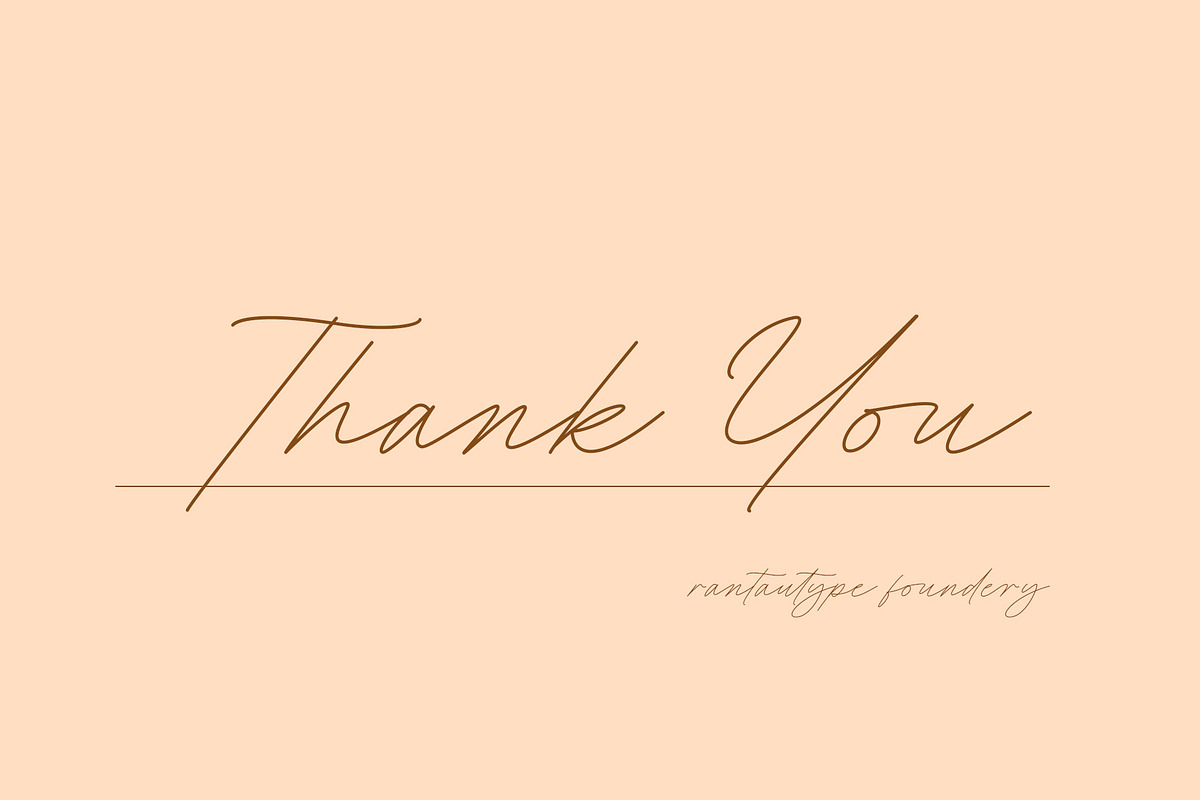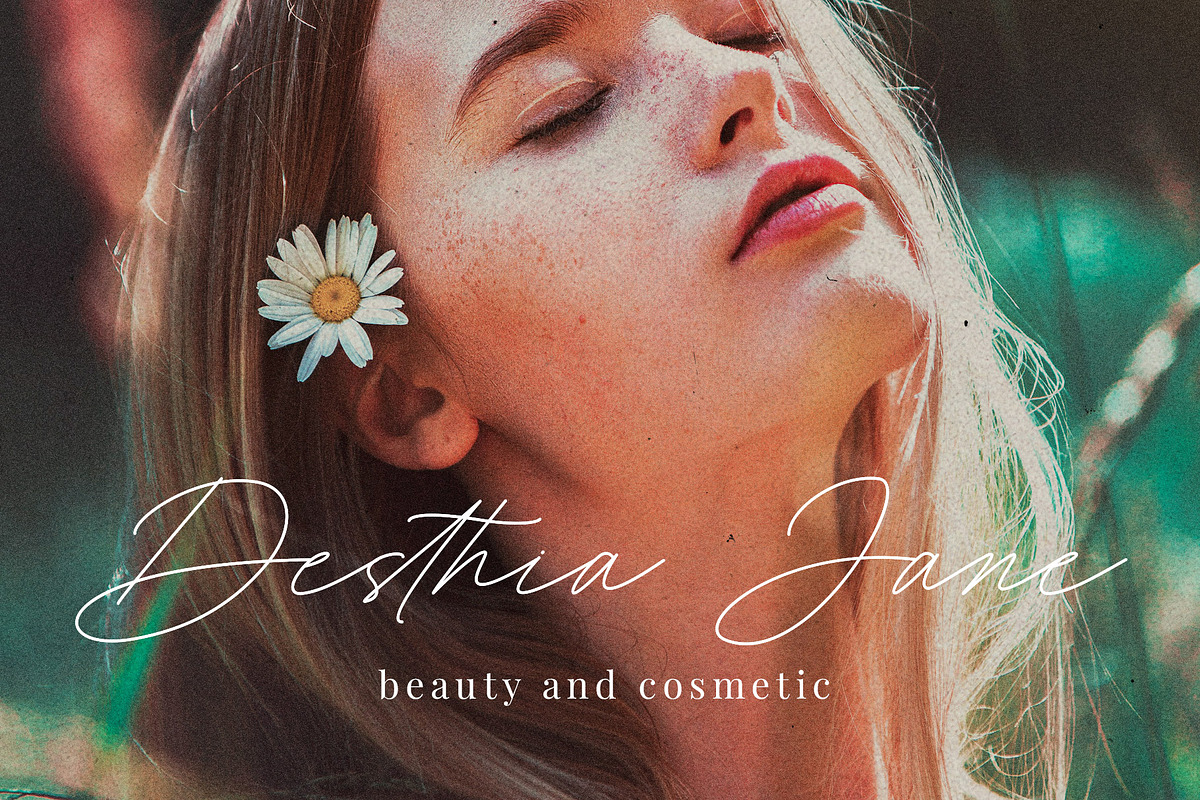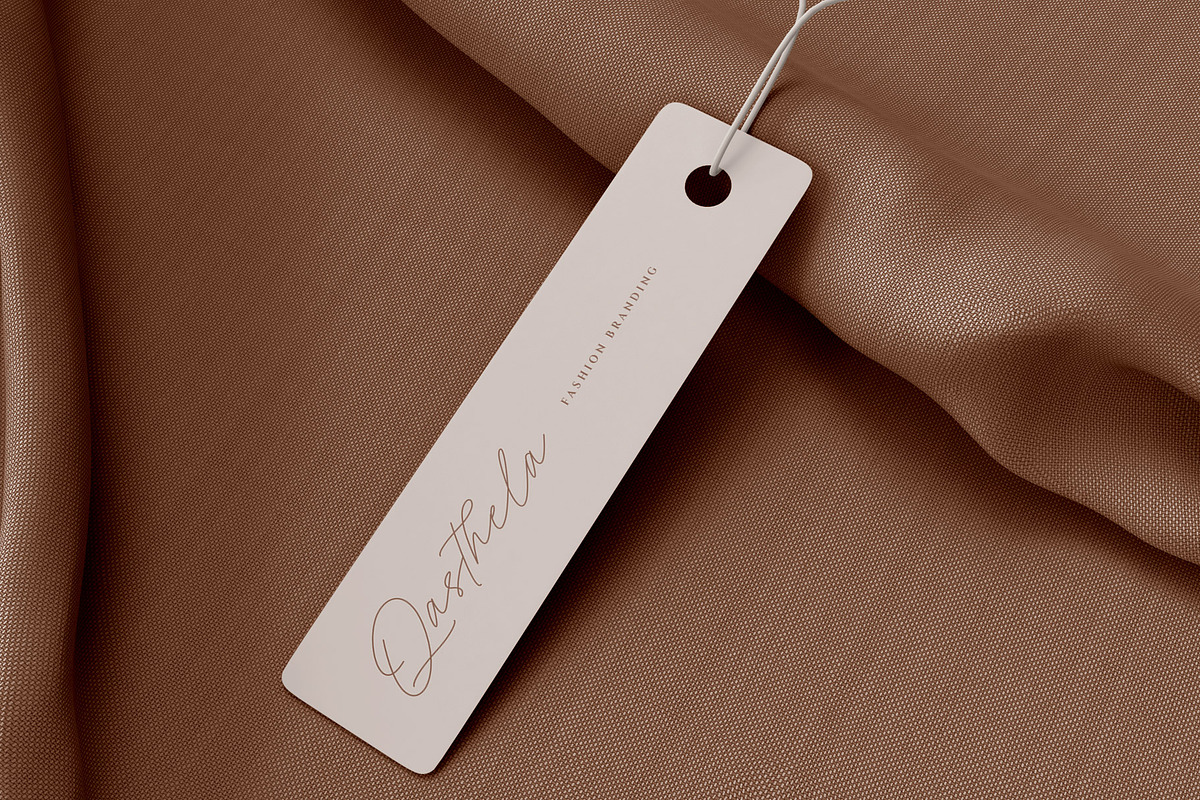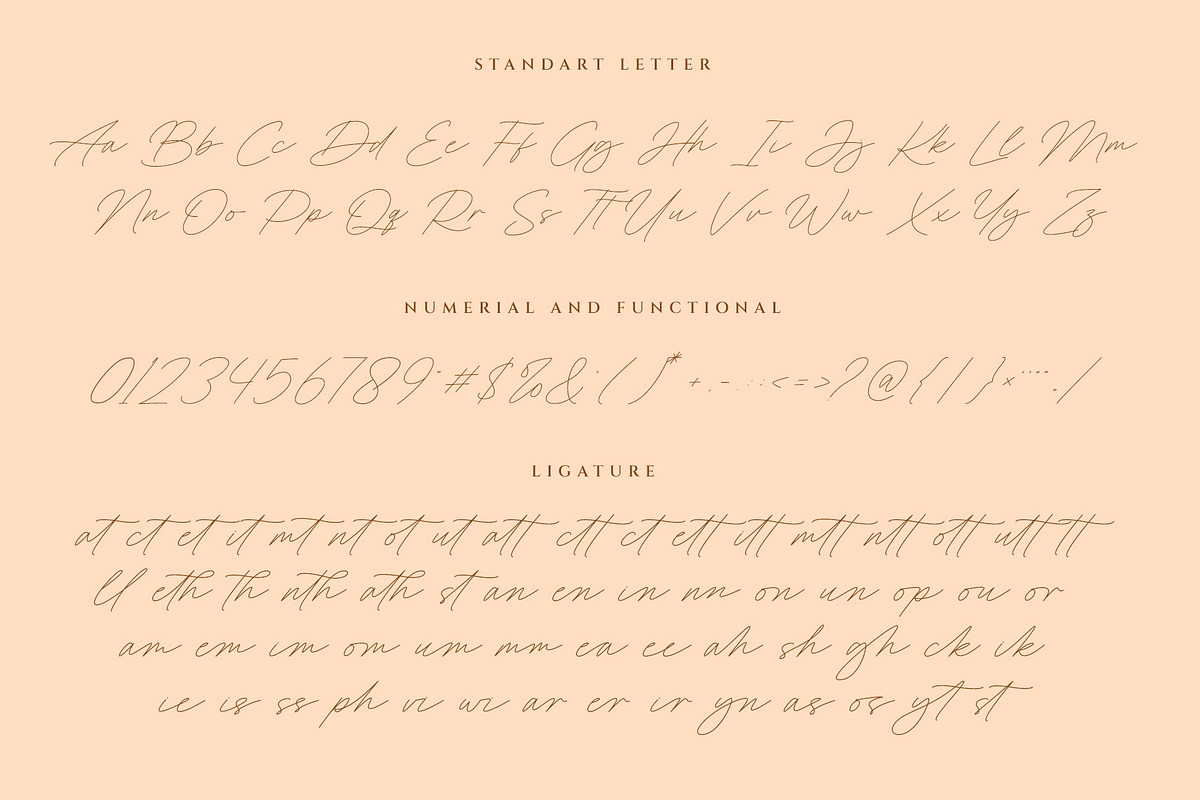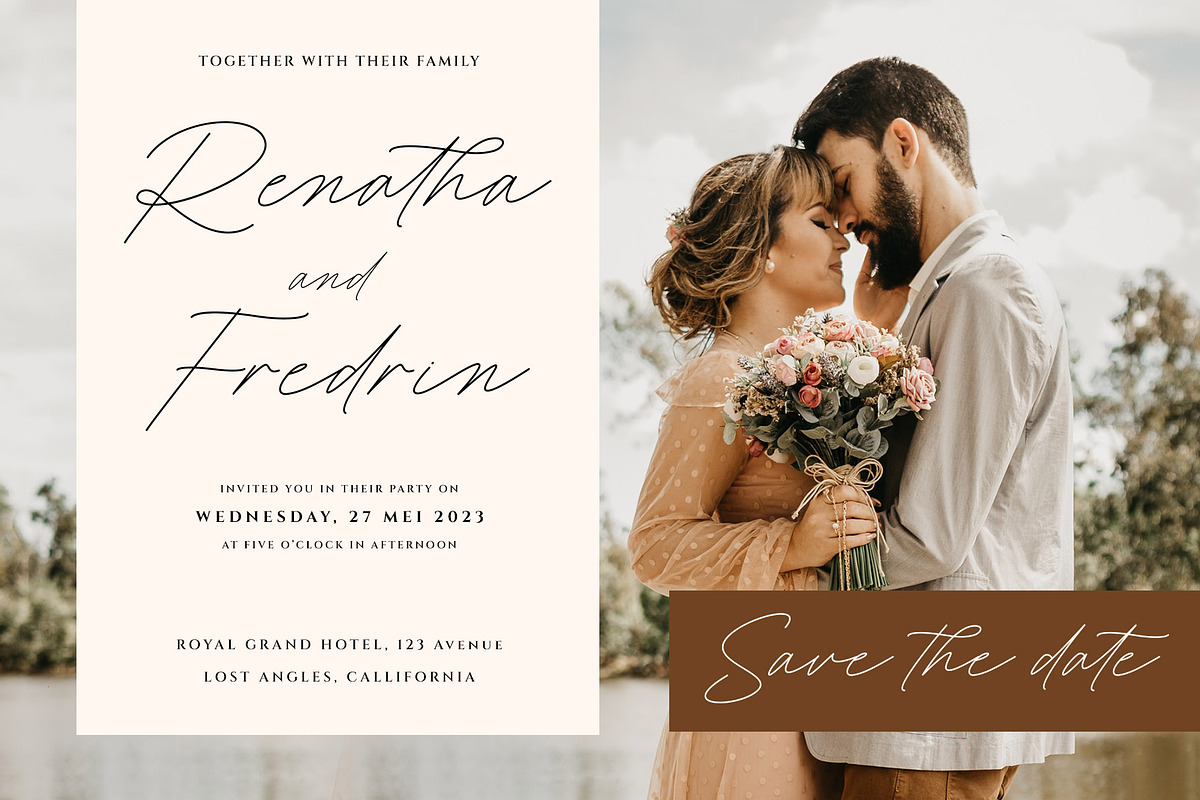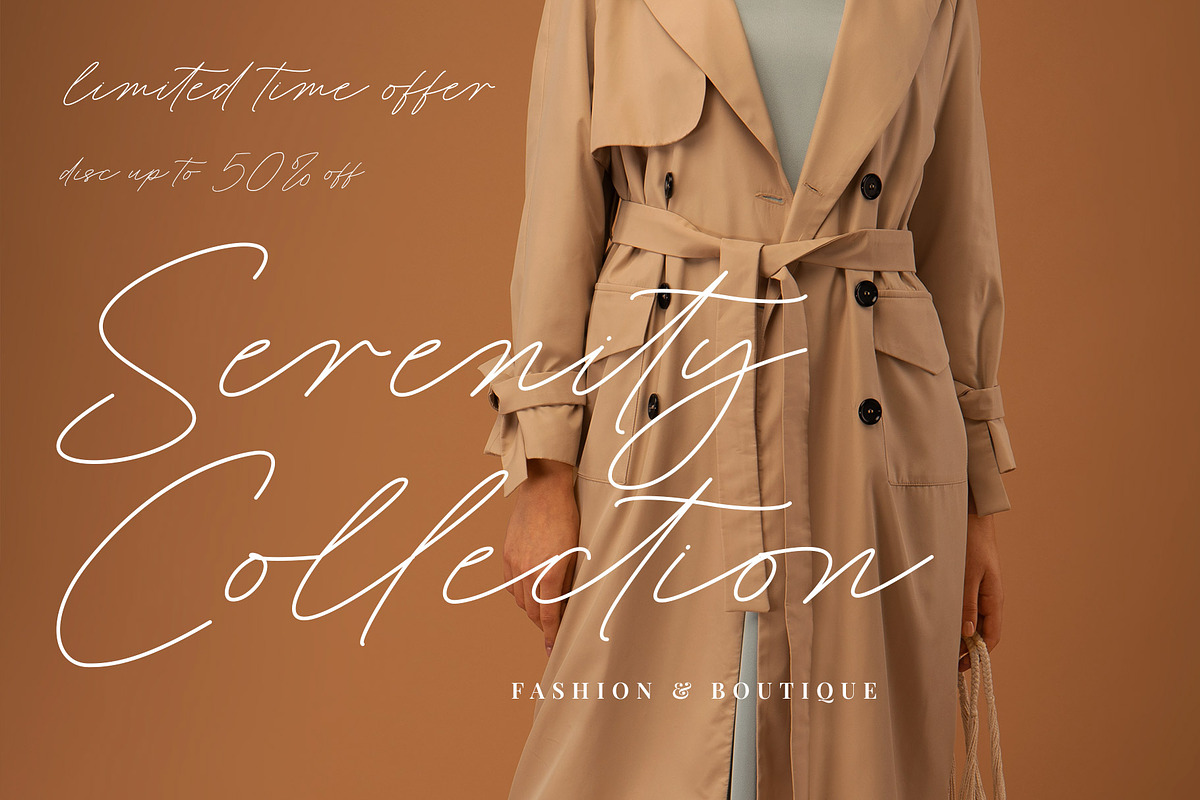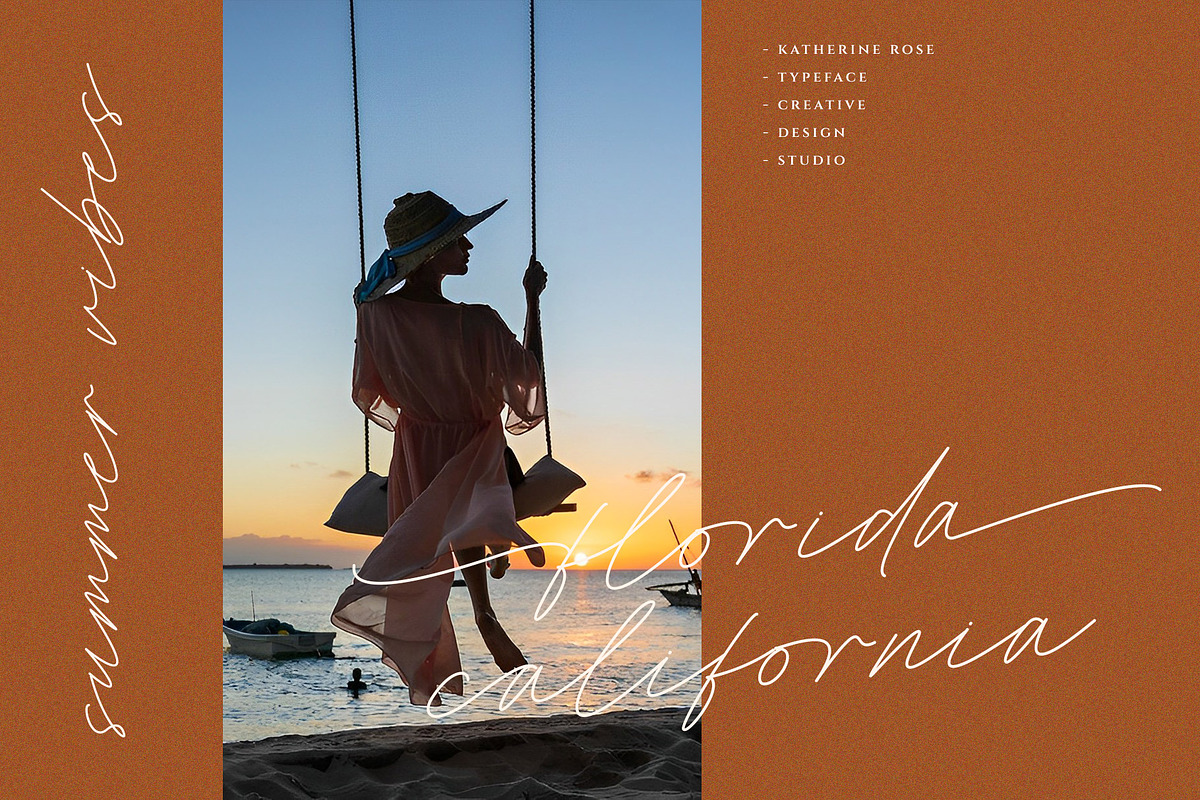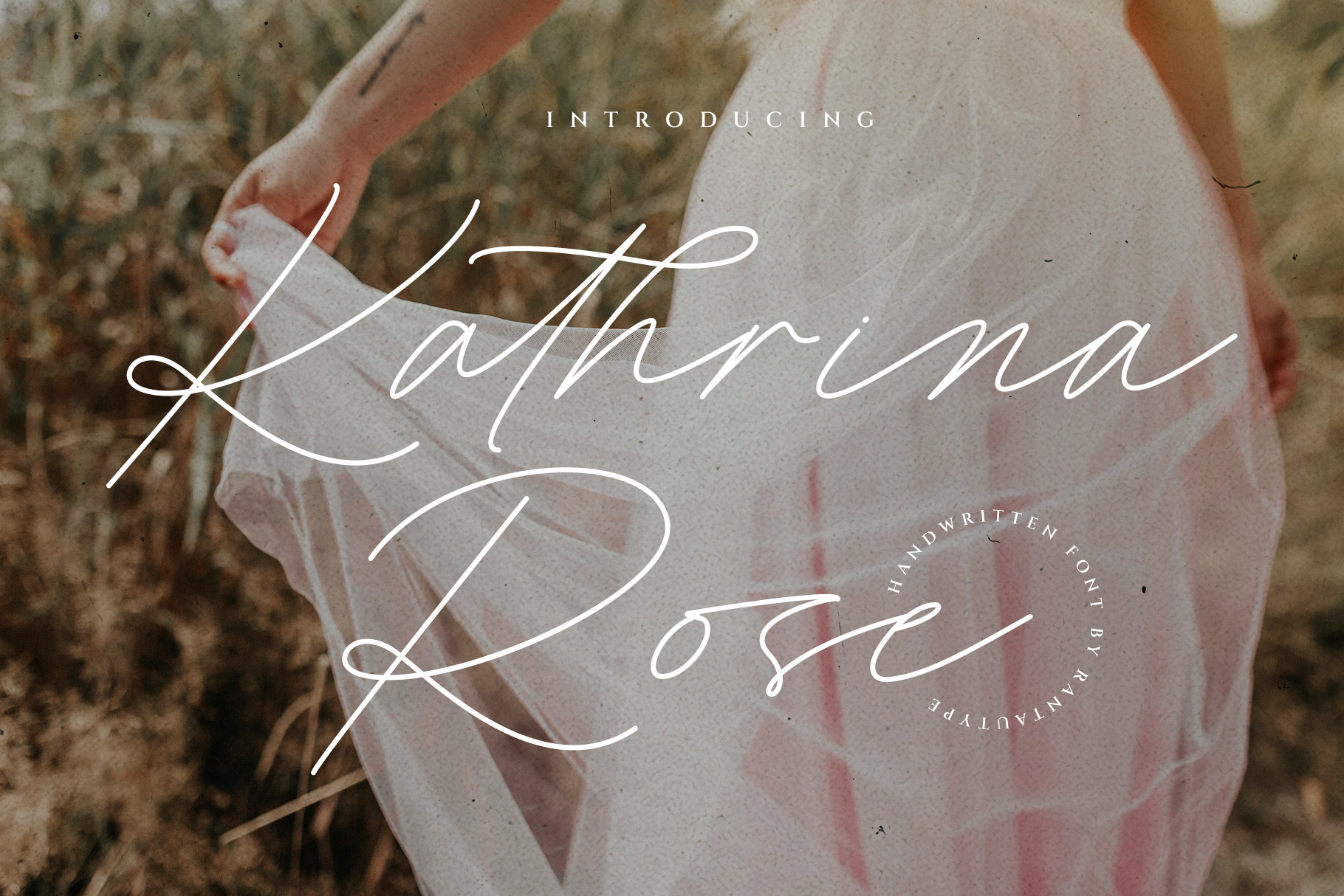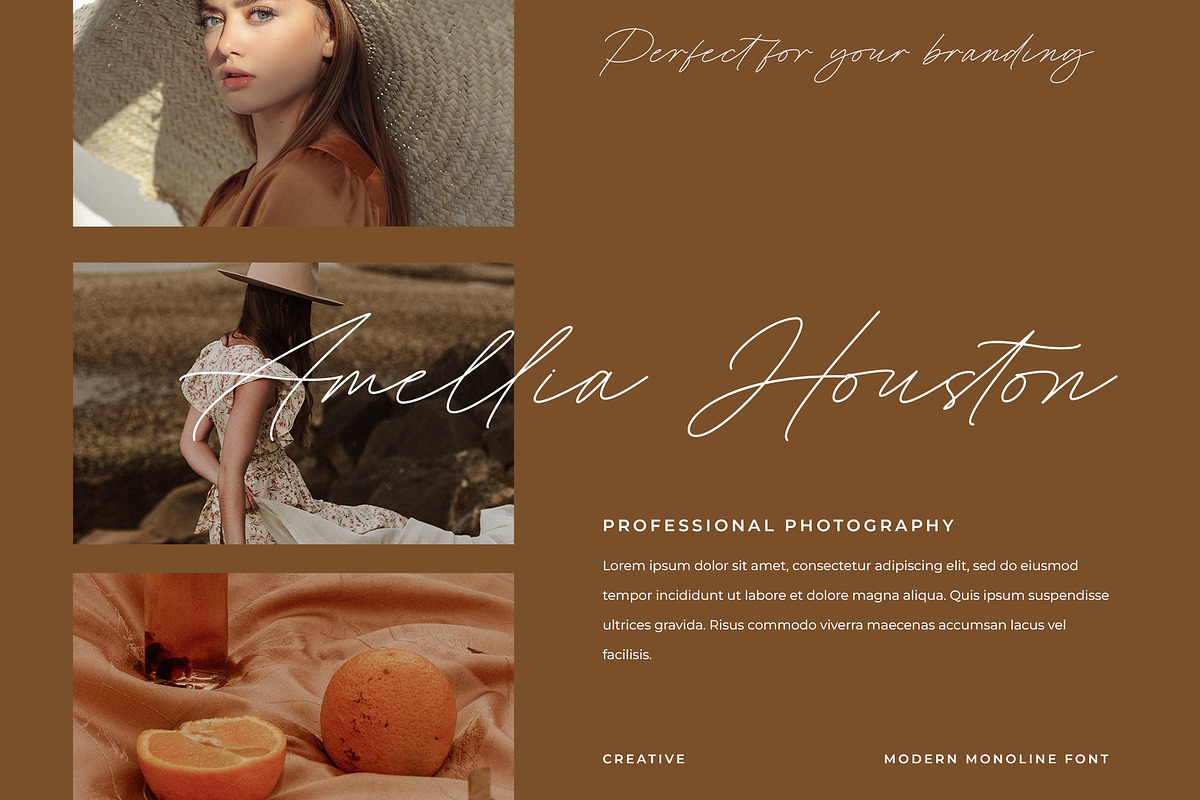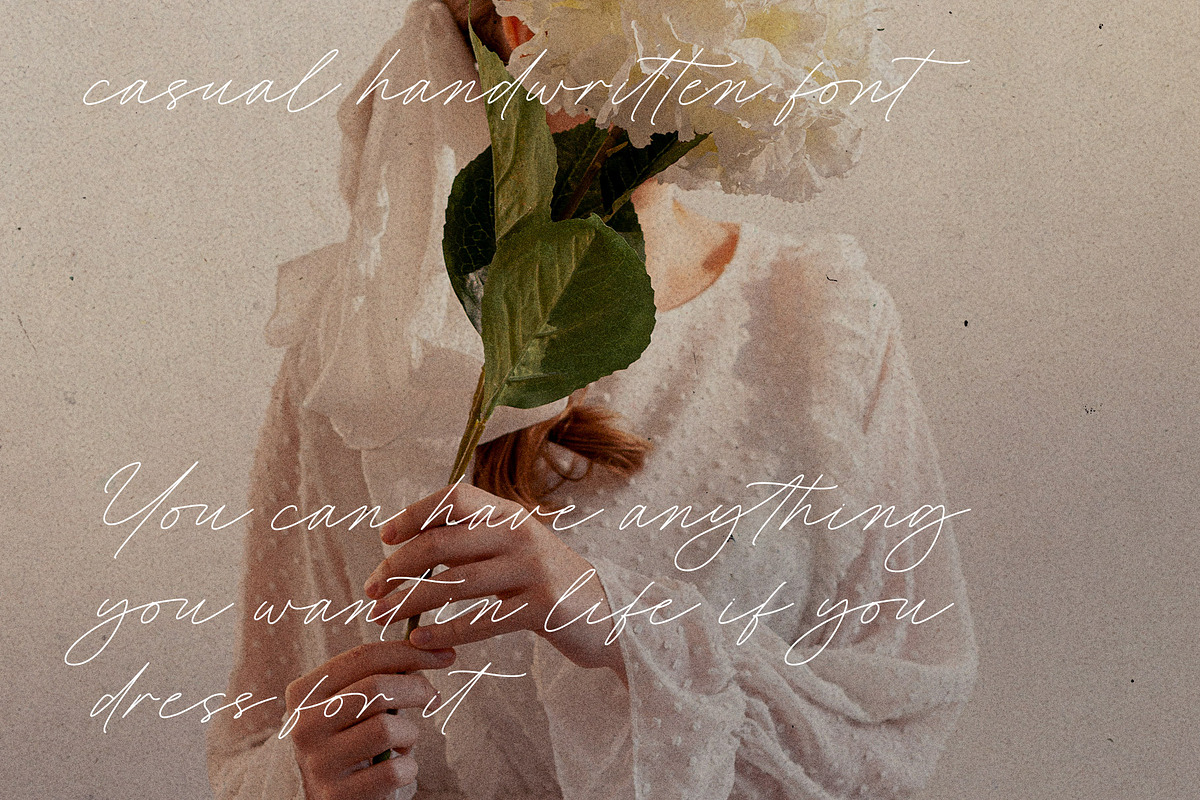
Kathrina Rose Business Font
Hi Ladies and Gentleman ! Proudly present stylish monolinge font “Kathrina Rose” for you business.
Kathrina Rose - modern monoline style which can be interpreted professional. we keep this font looks elegant, luxury, premium, modern, readable, stylish, feminine, catchy and easy to use.
Kathrina Rose - is the great choice for watermark on photography, branding, wedding event, signature or signature logo design, quotes, album cover, magazine, business card and many other design project. Kathrina Rose here to make your work to high level!!!
- Standar character A-Z and a-z
- 50 + Ligature
- Lowercase begin and end swash
- Multilinggual support